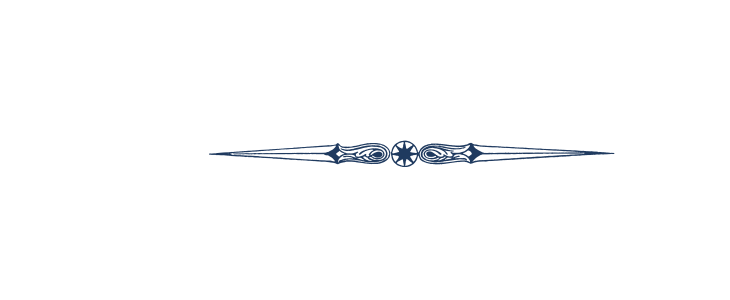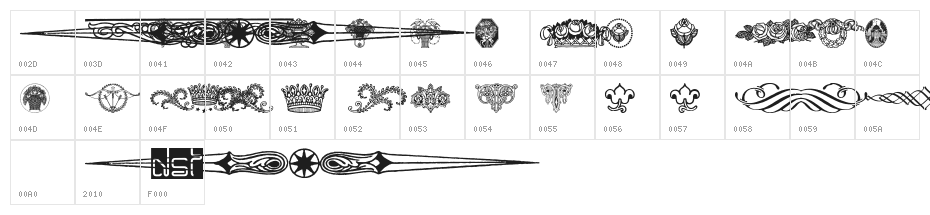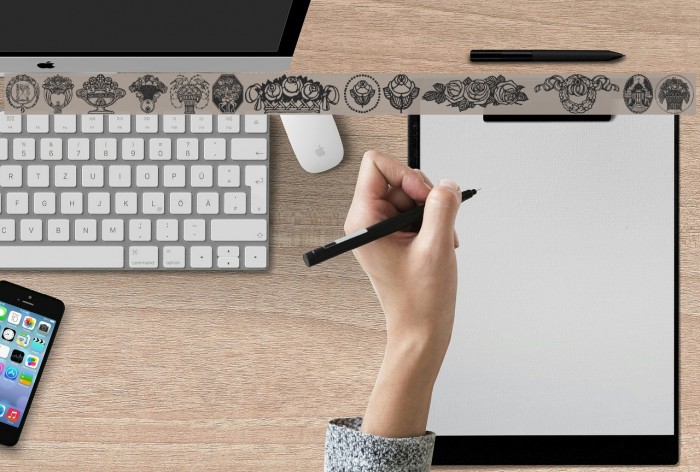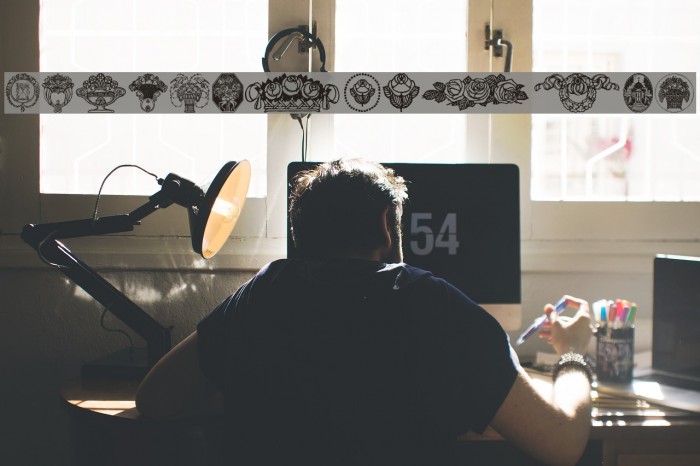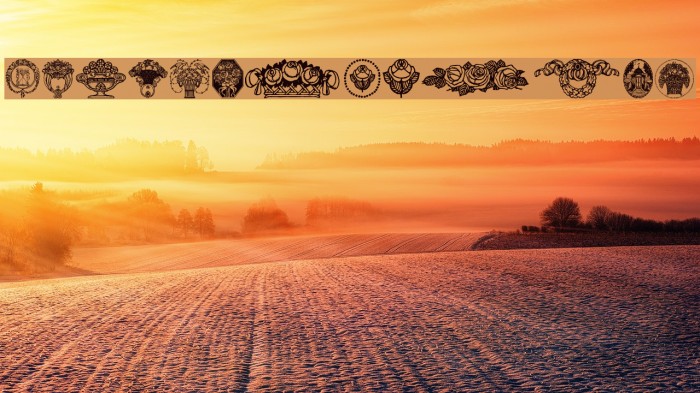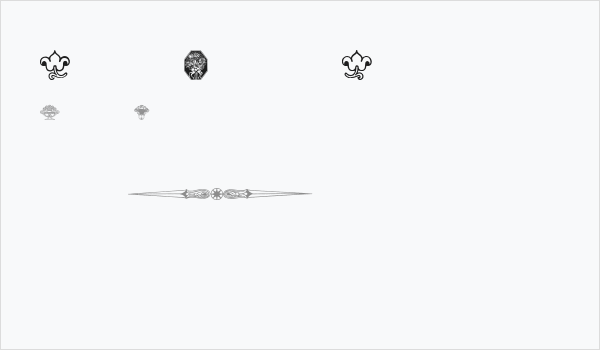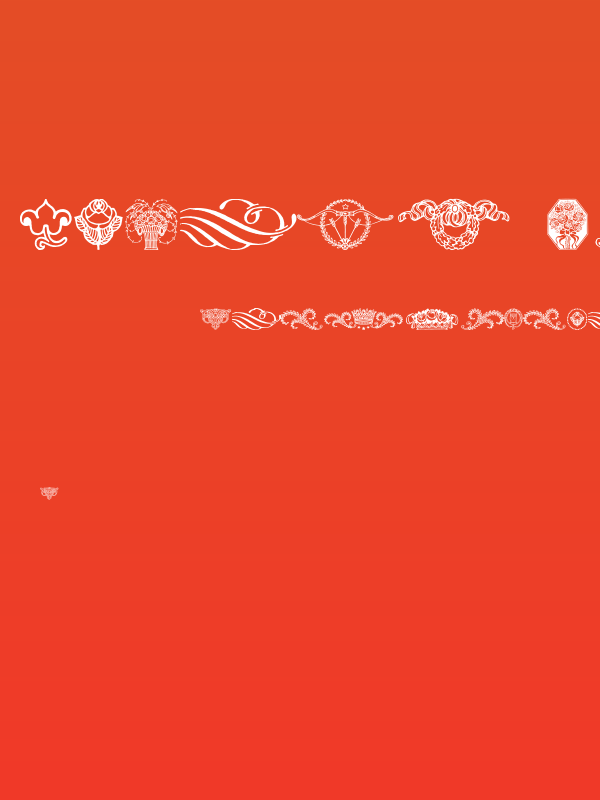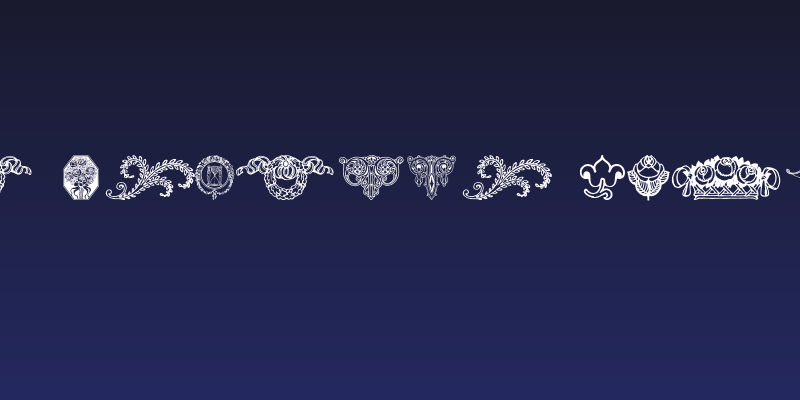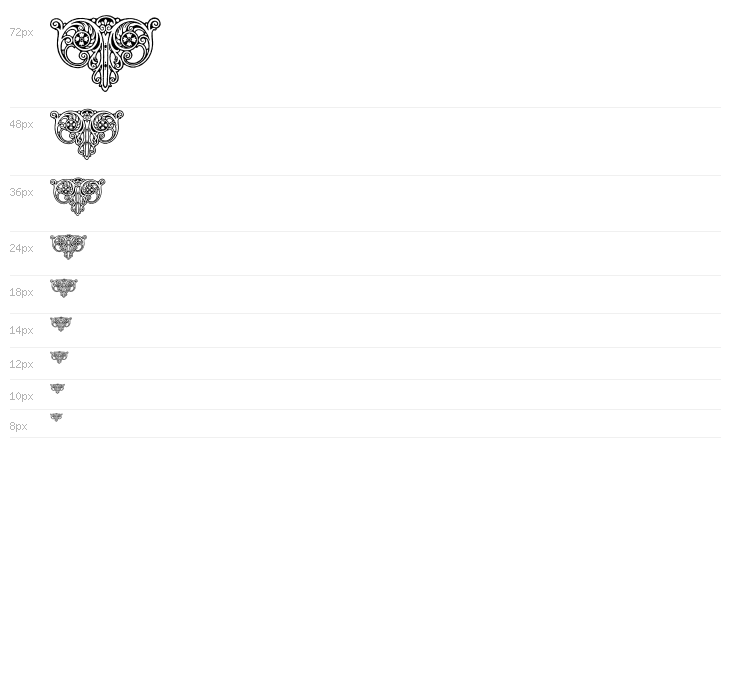
Wieynk Fraktur Vignetten Font
Wieynk Fraktur Vignetten Description
This is not a valid font. The image contains decorative elements and vignettes rather than a complete set of alphanumeric characters. These elements are ornate and intricate, featuring floral and abstract designs that are typical of decorative or ornamental styles. They are likely intended for embellishing documents or designs rather than serving as a functional typeface.
| Use Case | Decorative elements for design embellishments. |
| Proposed Projects | These decorative elements could be used for embellishing invitations, certificates, or as decorative borders in graphic design projects. |